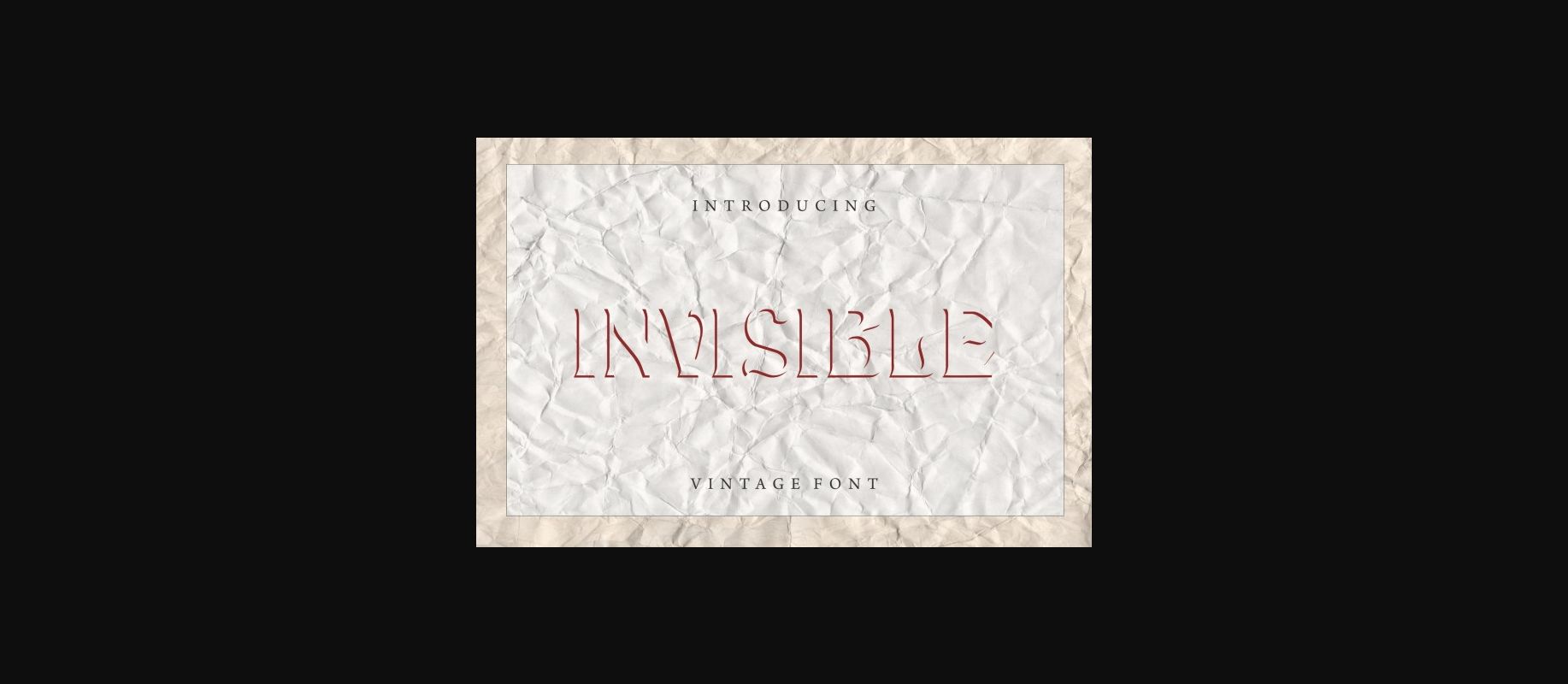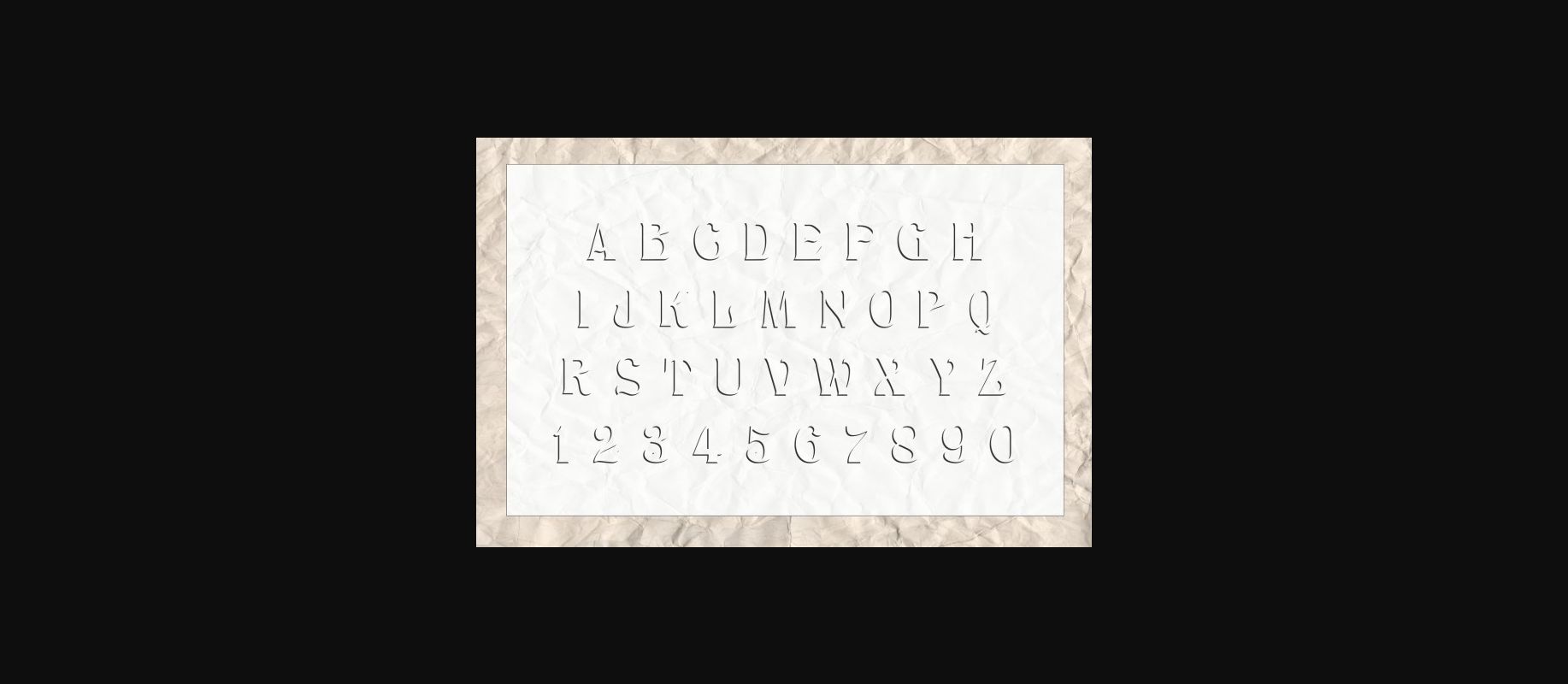
Invisible Font
About Invisible Font
The Invisible is a striking typeface. It represents only a shadow-like contour outline of the letter, giving it a 3D effect.